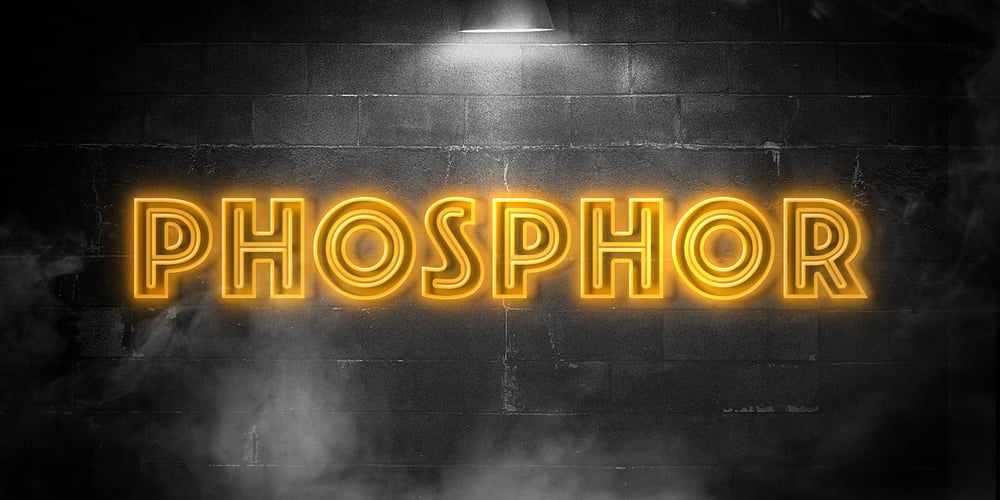
Phosphor
Phosphor font
Phosphor Font Family was designed by Jakob Erbar and published by Monotype. Phosphor contains 1 styles and family package options. The Phosphor font was designed by Jakob Erbar and released in 1930. This inline headline face was designed to look like glowing letters, hence its name Phosphor.